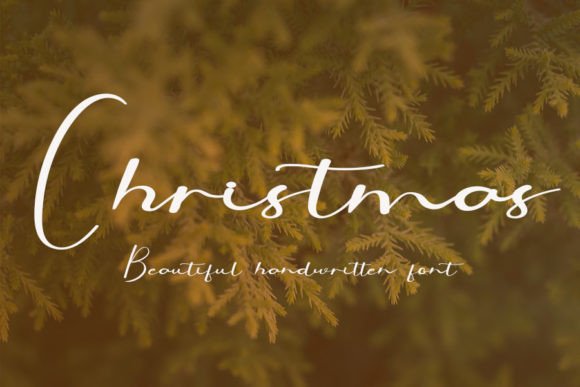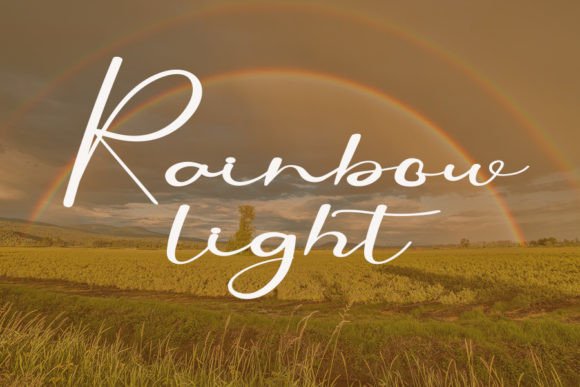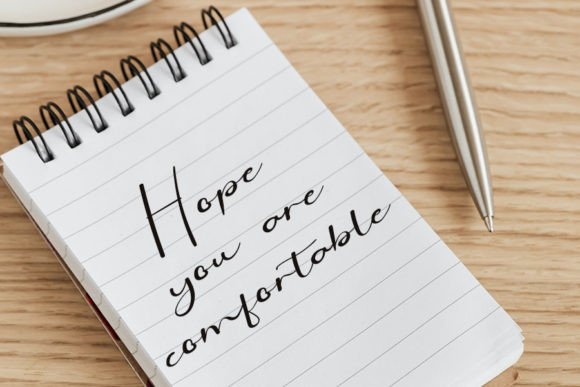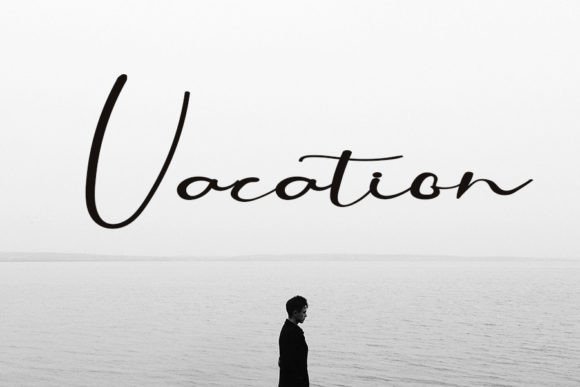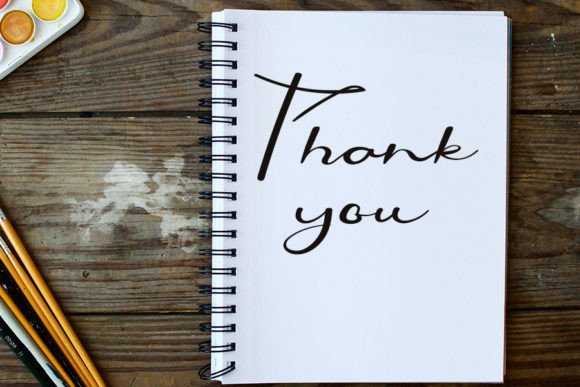
Christmas Font
Christmas Font Download – Cool Modern Handwritten Calligraphy
The Christmas Font download is a stylish handwritten script with a modern vibe and spotless form. Inspired by traditional calligraphy, this font blends balance, clarity, and elegance in one package. With its timeless strokes, it enhances both casual and professional projects, ensuring your work feels polished and creative.
Cool and Modern Handwritten Style
Christmas features balanced strokes that are not too thin or too thick, making it versatile and readable. As a result, it gives text a modern handwritten appearance while retaining classic calligraphy influences. In addition, its clean design ensures projects look refined and stylish.
From holiday invitations to elegant greeting cards, this font adds sophistication and charm. It gives words a personal and warm feel that makes messages stand out. Therefore, it is an excellent choice for stationery and festive designs.
Christmas Font Download for Logos and Posters
The Christmas Font download is also great for logos, posters, and branding. Its modern handwritten strokes create a professional yet creative impression, making it suitable for both businesses and personal use.
Versatility Across Creative Projects
This typeface adapts seamlessly to packaging, labels, magazines, and social media graphics. In addition, it performs equally well in digital and print formats, making it a reliable choice for modern creators.
Readability and Balanced Design
While some calligraphy-inspired fonts can be overly decorative, Christmas maintains readability. As a result, it works for bold headlines, product designs, and detailed text alike.
Why Add This Typeface to Your Collection?
The Christmas Font download is versatile, stylish, and easy to use. In other words, it fits invitations, posters, logos, packaging, and branding projects. Finally, it is a handwritten script that adds elegance, creativity, and timeless charm to every design.